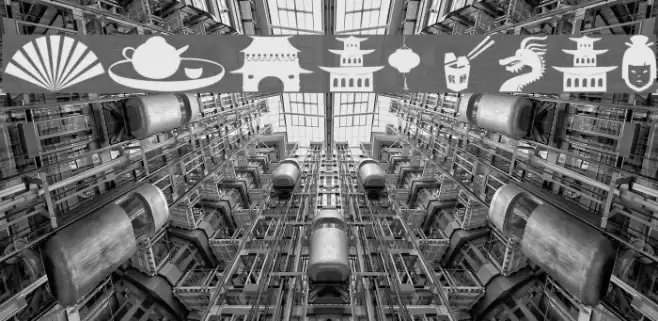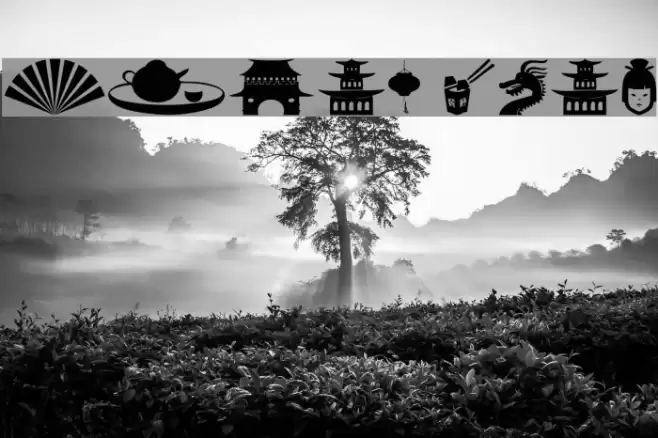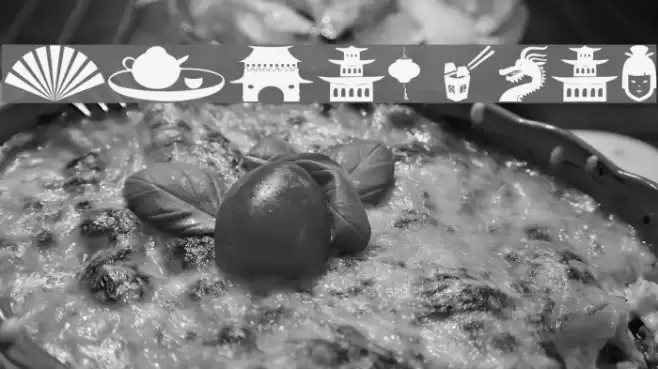
China Font
A decorative dingbat set featuring bold, high-contrast silhouettes of Chinese cultural icons, including dragons, pagodas, fans, food, architecture, and traditional symbols. Each glyph is a pictogram rather than a standard alphanumeric character.
- Proposed Projects: Posters, event flyers, educational materials, travel brochures, themed restaurant menus, cultural presentations.
- Overall Style: Decorative, Thematic
- Use Case: Icons, Decorative accents, Themed graphics